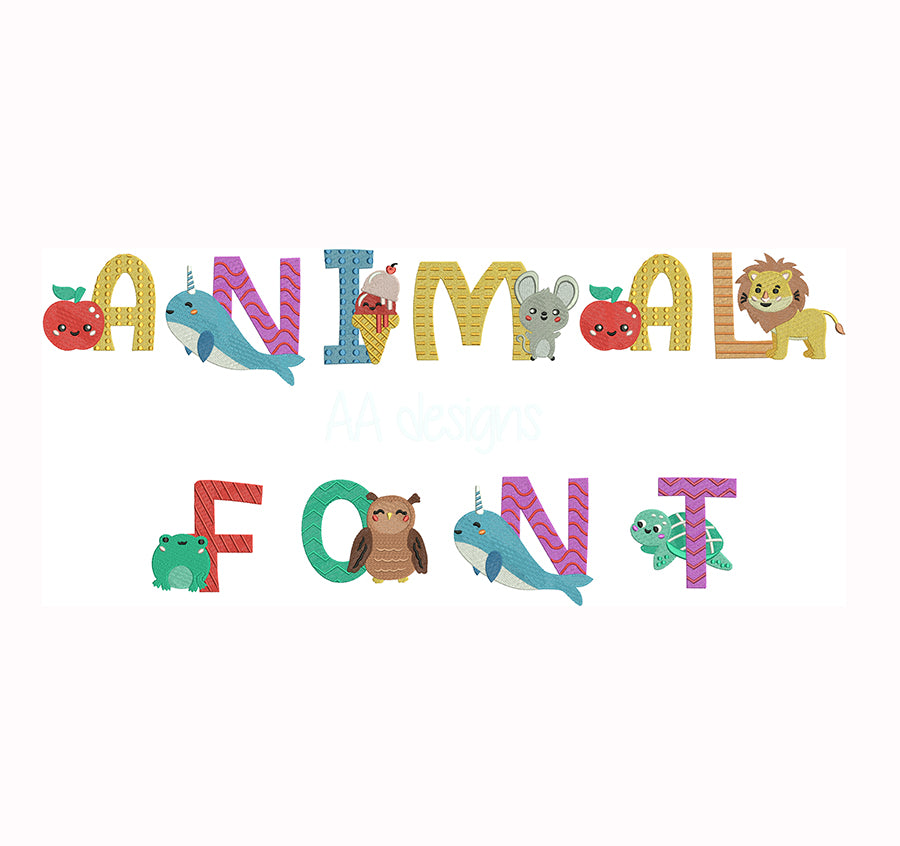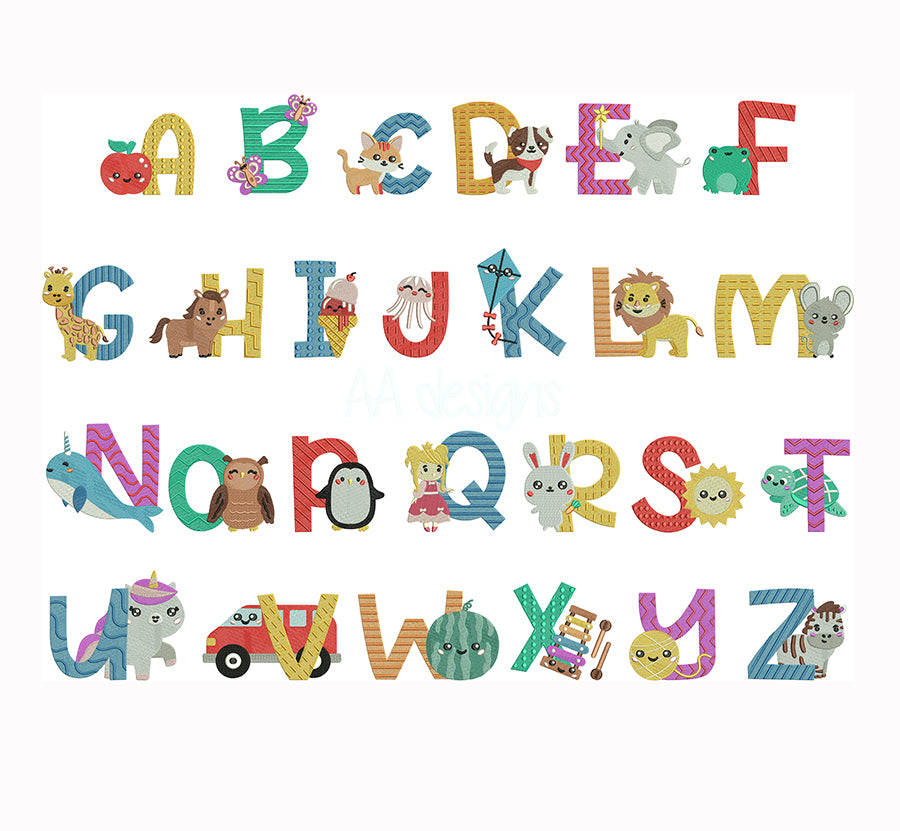
Animal Baby Embroidery Font
Welcome the little ones with the Animal Baby Embroidery Font — a sweet, whimsical machine embroidery font featuring adorable animal-inspired letterforms designed especially for babies and toddlers! 🐼🐯🐨🐰✨
Each letter comes to life with charming animal characters and details, making it the perfect choice for personalizing baby onesies, bibs, blankets, nursery décor, stuffed animals, and newborn gift sets that are as cute as can be.
- Clean stitching designed for small sizes — ideal for baby and toddler items